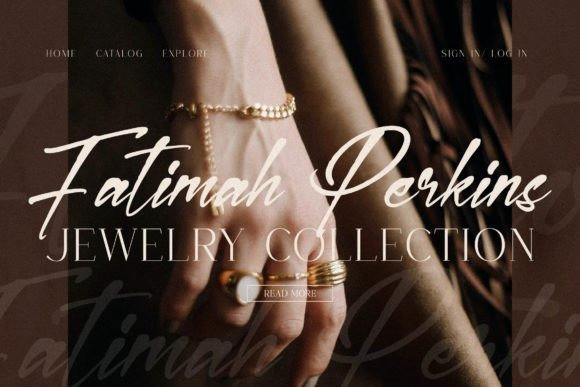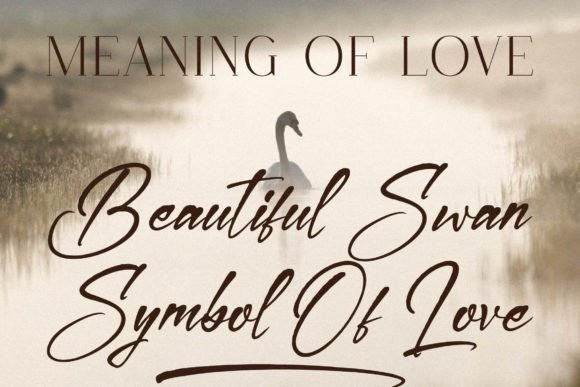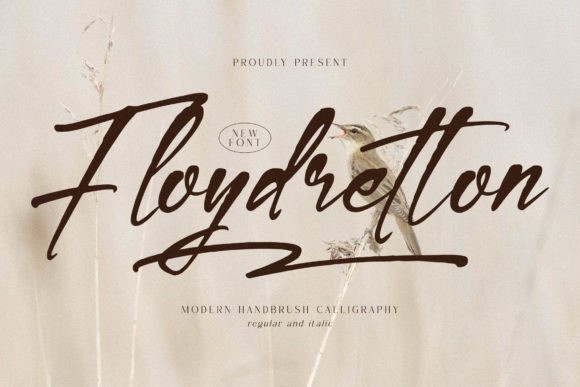
Floydretton Script Font
Floydretton Script Font – Modern Handbrush Calligraphy , from Glorytype Studio, suitable for any projects such as: logos, branding projects, homeware designs, product packaging, mugs, quotes, posters, shopping bags, t-shirts, book covers, name card, invitation cards, greeting cards, label, photography, watermark, special events, and all your other lovely projects that need a beautiful script taste.